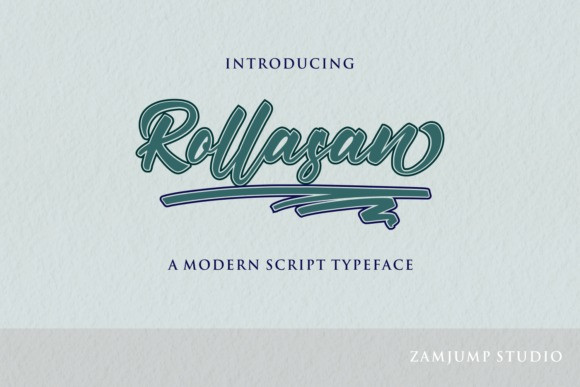
Rollasan Font
Rollasan Script Font is a script font that is purely the result of original ink strokes on paper, there are several alternates for lowercase letters, as well as swashes to beautify the writing, Rollasan collection in your Font Library. It’s a lot of fun to use because every word can be changed to your liking.